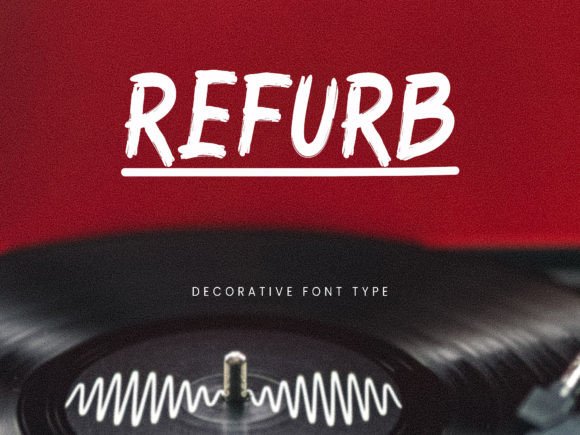
Behold the Refurb Font: A Masterpiece of Simplicity and Modernity
Embark on a typographic journey with Refurb, a font that exudes simplicity, modernity, and a touch of artistic flair. This brush-style display font is a game-changer, meticulously crafted to elevate your designs to new heights. Its bold strokes and organic charm add a touch of personality and sophistication to any project, leaving a lasting impression on your audience.
Unleash Your Creativity: Refurb is the Perfect Canvas for Your Design Dreams
With Refurb, creativity flows effortlessly. Whether you're a seasoned designer or just starting your journey, this font is your perfect companion. Its versatility knows no bounds, effortlessly adapting to a wide range of design projects. Craft logos that speak volumes, design magazine layouts that captivate readers, create social media posts that stand out, or elevate your brochures with a touch of elegance. Refurb is your trusted ally, transforming your ideas into stunning visual masterpieces.
Make a Statement with Refurb: The Ultimate Font for Modern Resumes
In today's competitive job market, first impressions matter. Refurb is your secret weapon to creating modern resumes that make a lasting impact. Its unique style adds a touch of professionalism and creativity that sets you apart from the crowd. Whether you're a seasoned professional or a recent graduate, Refurb empowers you to showcase your skills and achievements in a way that commands attention. Prepare to leave recruiters and hiring managers awe-inspired with a resume that reflects your unique personality and unwavering determination.
Step into the Spotlight: Refurb Transforms Your Designs into Attention-Grabbing Masterpieces
With Refurb, mediocrity becomes a thing of the past. Prepare to step into the spotlight as your designs captivate audiences with their undeniable charm and sophistication. Imagine your logo standing out boldly on billboards, your magazine covers flying off the shelves, and your social media posts generating an avalanche of likes and shares. Refurb is your secret weapon to leaving an unforgettable impression, attracting new customers, and building a loyal fan base that appreciates your impeccable taste in design.